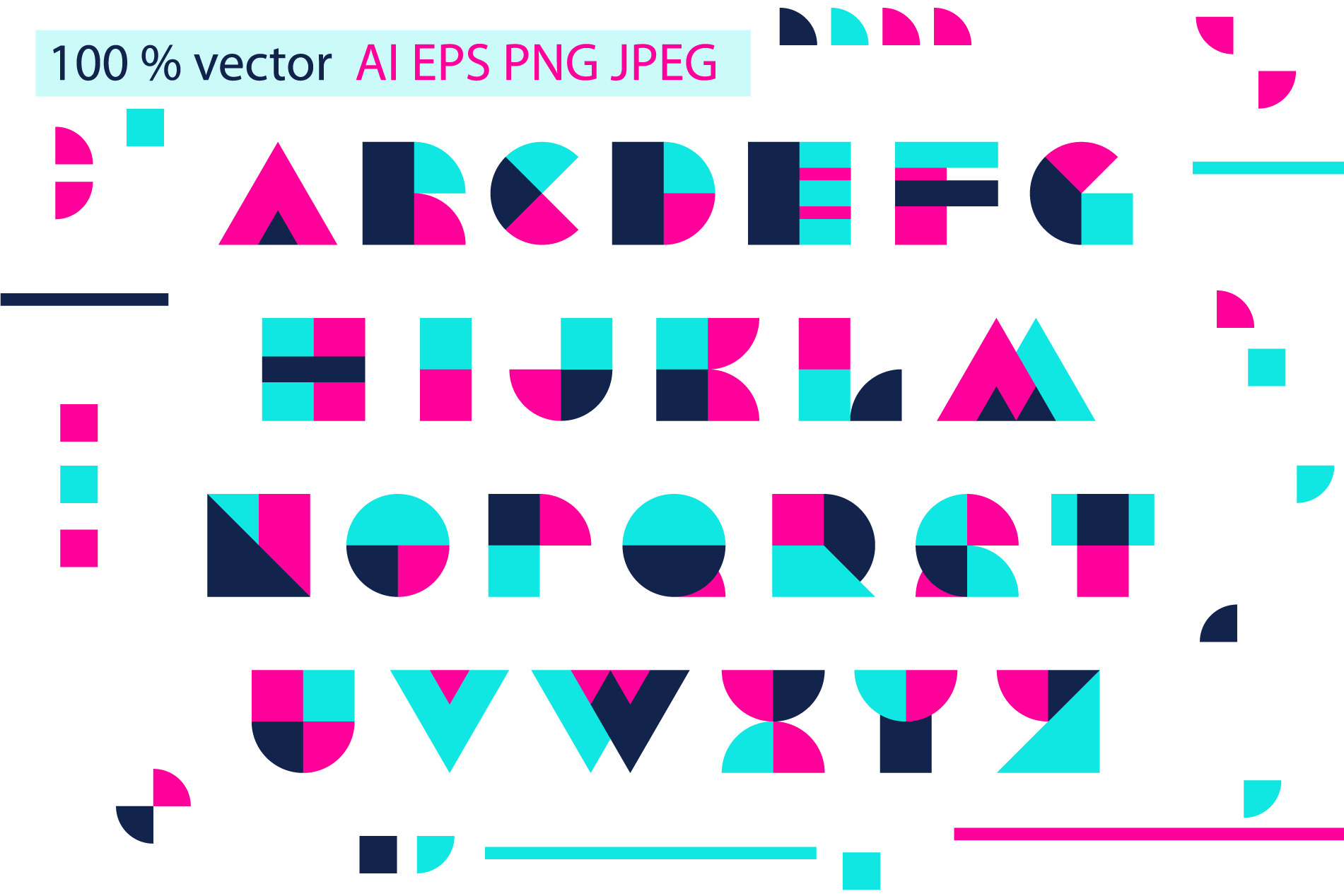
Geometric Font
Geometric color overlay letters
This is not a font, it is a set of vector images. You can create your own font in special programs using these vector symbols